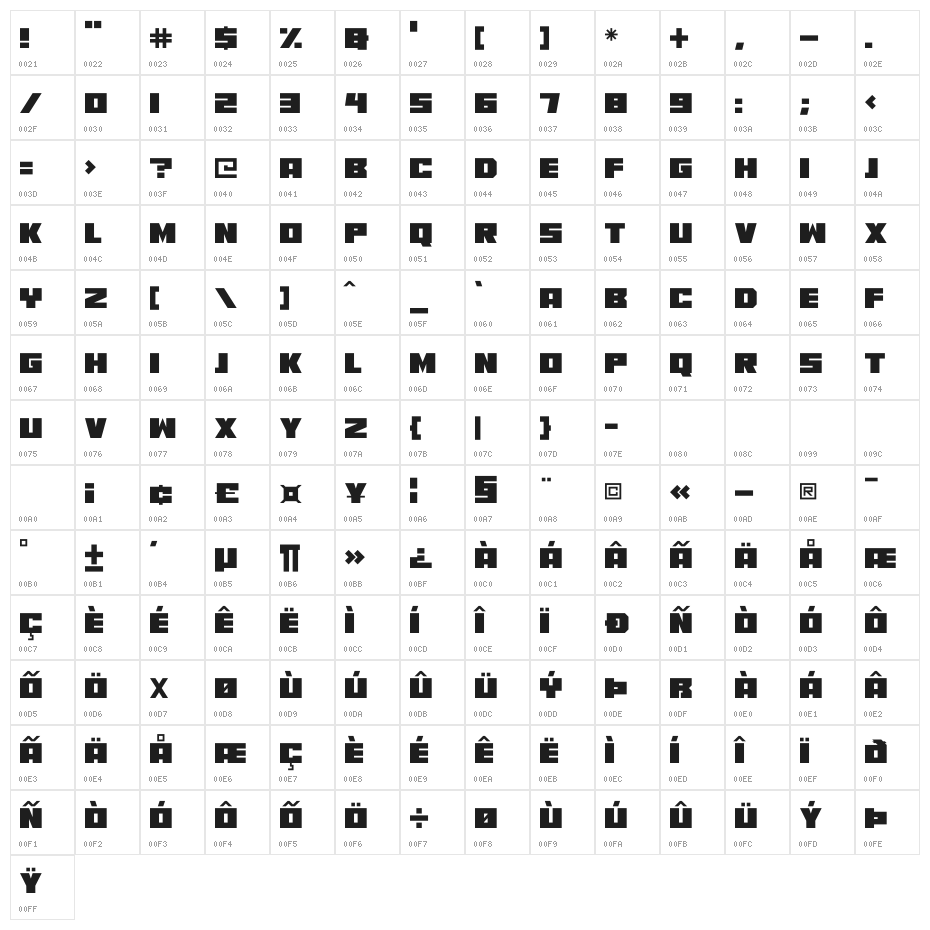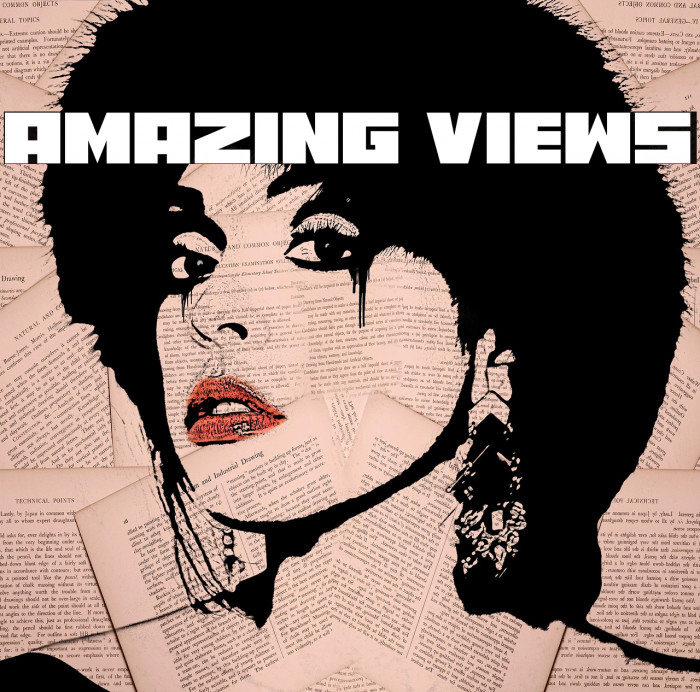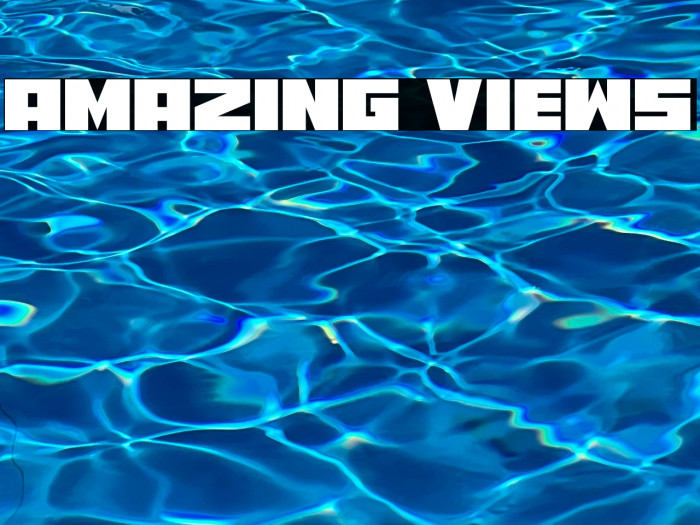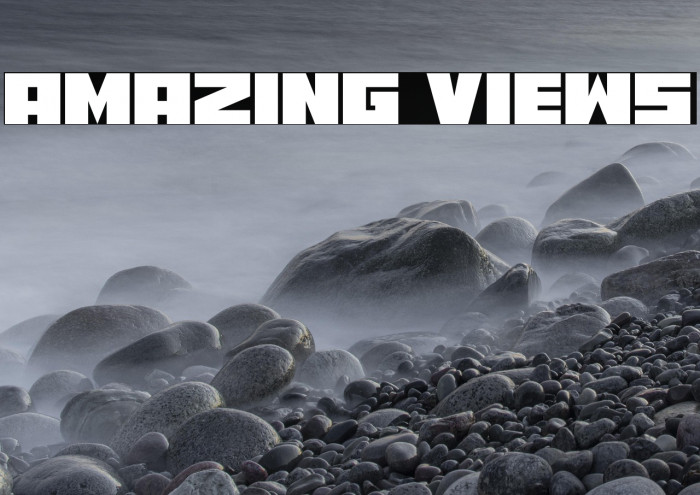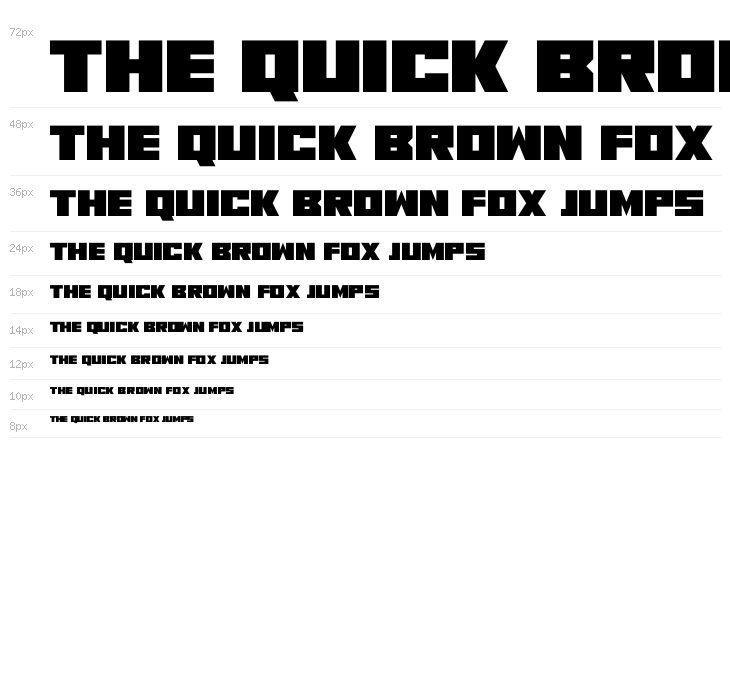
Amazing Views Font
Amazing Views Description
This font features a bold, geometric design with strong, angular lines and a blocky appearance. The characters are uniformly wide, creating a sense of stability and strength. The uppercase letters are particularly striking, with sharp edges and a modern aesthetic. The numbers and special characters maintain this bold style, ensuring consistency across all glyphs. The font's overall look is both futuristic and industrial, making it suitable for projects that require a strong visual impact.
| Overall Style | Modern, Industrial |
| Proposed Projects | Ideal for branding, posters, headlines, and any design requiring a strong, impactful presence. |